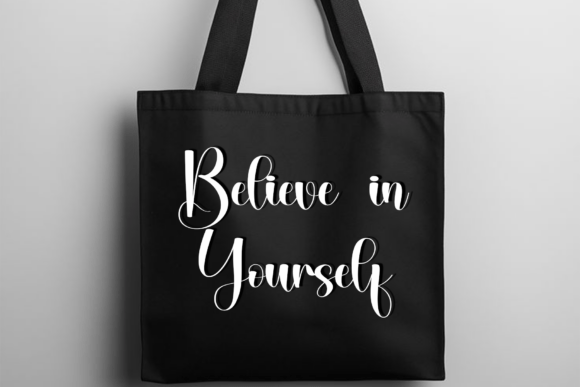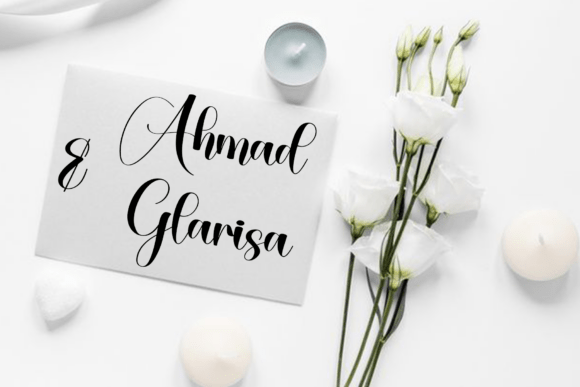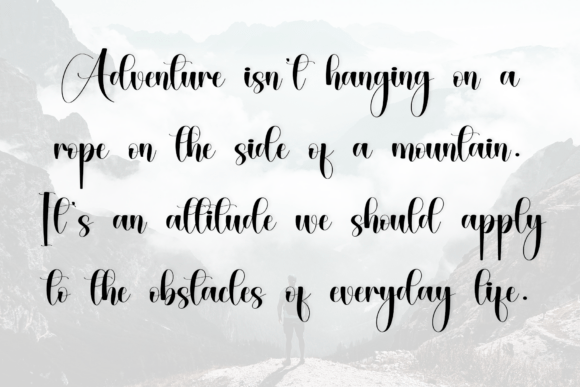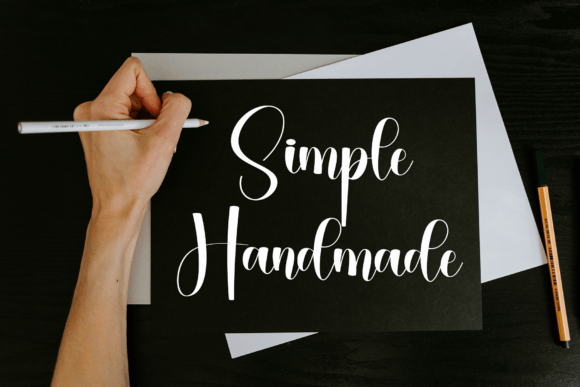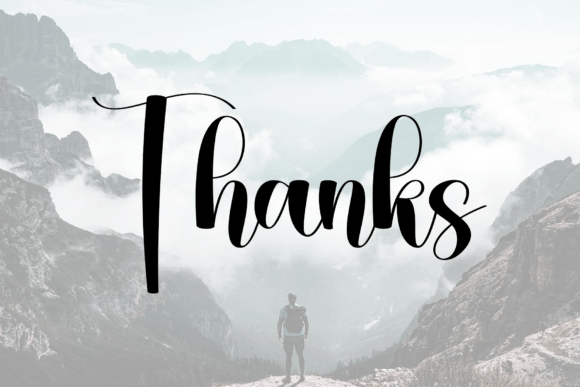
Discover the Perfect Script for Your Next Creative Quest
As a designer, have you ever found yourself staring at a blank canvas, waiting for the perfect font to bring your vision to life? For me, it’s that moment of inspiration when everything clicks into place, and I know I’ve found the perfect tool to elevate my design. That’s exactly what happened when I stumbled upon the Adventure Font – a stunning, modern script that exudes elegance and sophistication.
The Adventure Font is more than just a beautiful script; it’s a versatile tool designed for wedding invitations, branding, fashion, and editorial design. Its refined character, calligraphic charm, and flowing curves evoke a sense of romance and exploration, making it perfect for designers who want to add a touch of luxury to their projects. With its PUA encoding, accessing all alternates and flourishes is a breeze, saving you time and effort in the design process.
Adventure Font Key Features
- Font Family: Adventure Font is a unique, handwritten font designed to evoke a sense of adventure and exploration.
- Character Set: The font includes a comprehensive set of characters, including uppercase and lowercase letters, numerals, punctuation marks, and special characters.
- Size and Resolution: Designed to be highly legible at various font sizes and resolutions, making it suitable for use in a range of applications, from small text to large headlines.
- Unique Characteristics: The font’s handwritten style and subtle imperfections give it a personal, hand-crafted feel, perfect for adding a touch of personality to designs.
Designer Review: Adventure Font
First off, I love the playfulness of the Adventure Font! ✨ The designer has done a great job of capturing the spirit of adventure and exploration. The font is fun, energetic, and perfect for projects that need a sense of excitement and wanderlust. The unique letterforms and exaggerated flourishes really add to the adventurous feel.
One of the things that works well is the font’s ability to work across different text sizes and styles. ✨ Whether you’re using it for a title or body text, Adventure Font remains readable and visually appealing. The font also has a nice balance of bold and light weights, making it easy to use in various design contexts.
While Adventure Font is a great choice for many projects, there are a few limitations to keep in mind. ⚠️ The font’s readability can be affected by the presence of diacritical marks and special characters, which can make the text look cluttered. Additionally, the font’s playfulness can sometimes make it difficult to use in more formal or professional contexts.
- May not be suitable for formal or professional projects
- Readability can be affected by diacritical marks and special characters
Overall, I think Adventure Font is a fantastic choice for designers looking to add some excitement and adventure to their projects. While it may have some limitations, the font’s unique personality and versatility make it a great addition to any design library.
Adventure Font is perfect for designing travel brochures, adventure-themed posters, and outdoor activity promotions. Use it to add a sense of excitement and adventure to your designs.